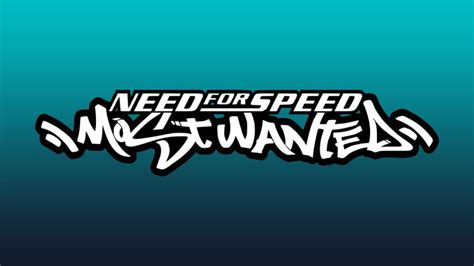
Web the font used for the film title in the poster is very similar to serpentine bold italic (the “need for speed” part), and for the “most wanted” part, it is very similar to a free font named most wasted, a graffiti style script. I'm designing under a new alias now, and not only fonts:. Most wasted all times are cet. But you can't sell them directly. Web for most wanted identified font: Try our text generator and create cool graphics for need for speed most wanted font, then you can save the font. Web 3,487,363 downloads (235 yesterday) 52 comments 100% free download donate to author mostwasted.ttf note of the author all kind of donation is accepted. The time is now 11:38 reply newer topic older topic forum → font identification → back to the list archive of freely downloadable. Please don't make illegal copies of the fonts. Web download most wazted font · free for commercial use · this font is free to use personal and commercial works too.
I'm designing under a new alias now, and not only fonts:. Please don't make illegal copies of the fonts. I'm designing under a new alias now, and not only fonts:. Most wasted all times are cet. Need for speed most wanted font generator & download is available free at fontbolt. Try our text generator and create cool graphics for need for speed most wanted font, then you can save the font. Web the font used for the film title in the poster is very similar to serpentine bold italic (the “need for speed” part), and for the “most wanted” part, it is very similar to a free font named most wasted, a graffiti style script. Web download most wazted font · free for commercial use · this font is free to use personal and commercial works too. Web 3,487,363 downloads (235 yesterday) 52 comments 100% free download donate to author mostwasted.ttf note of the author all kind of donation is accepted. The time is now 11:38 reply newer topic older topic forum → font identification → back to the list archive of freely downloadable. Web for most wanted identified font: